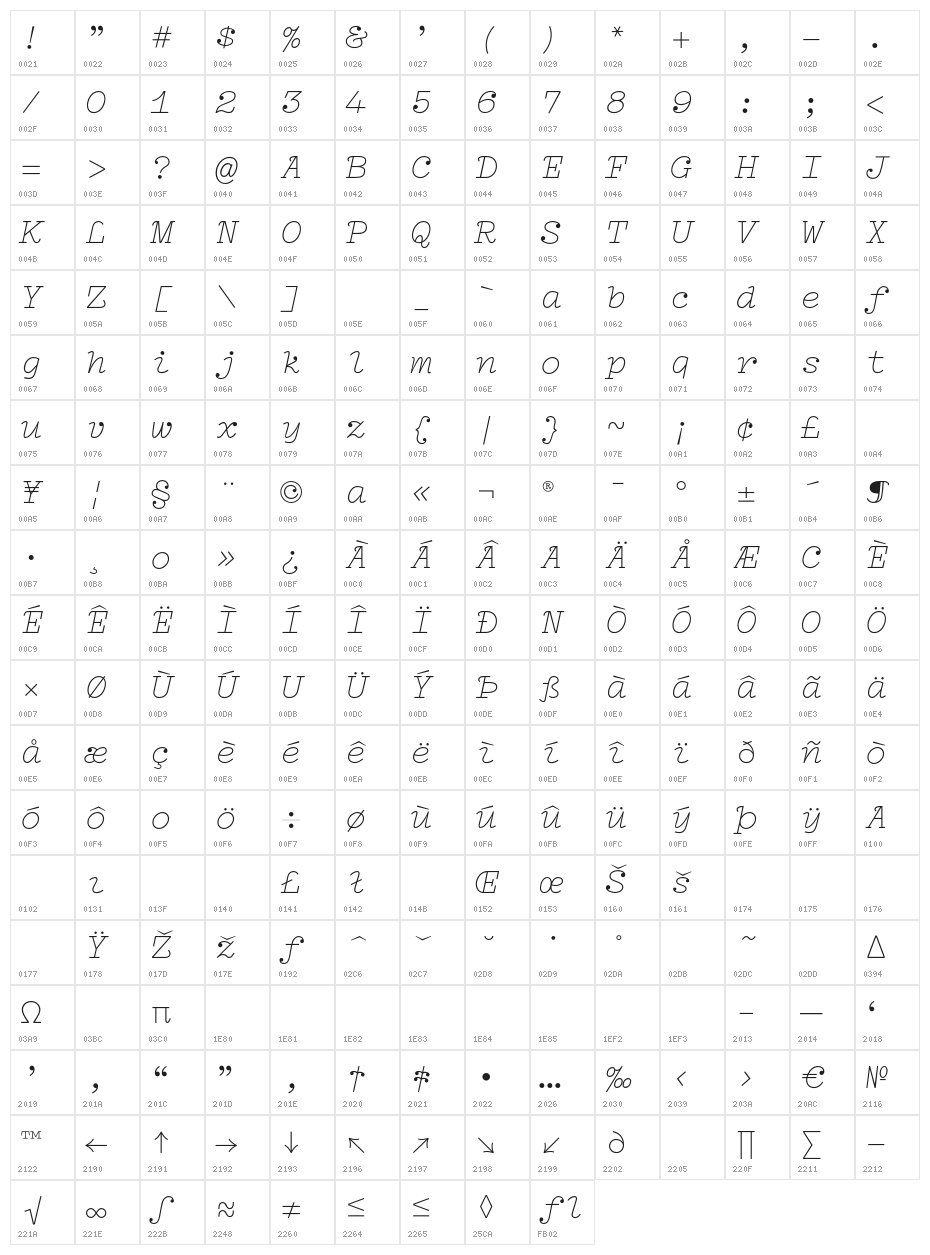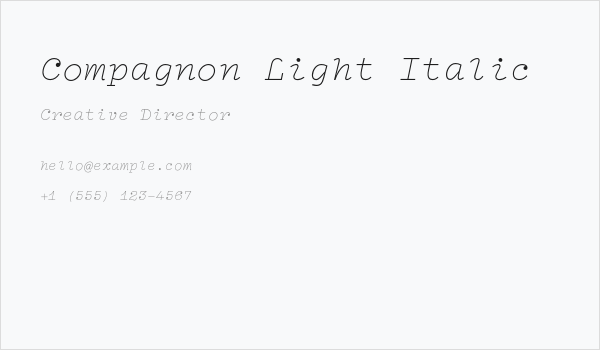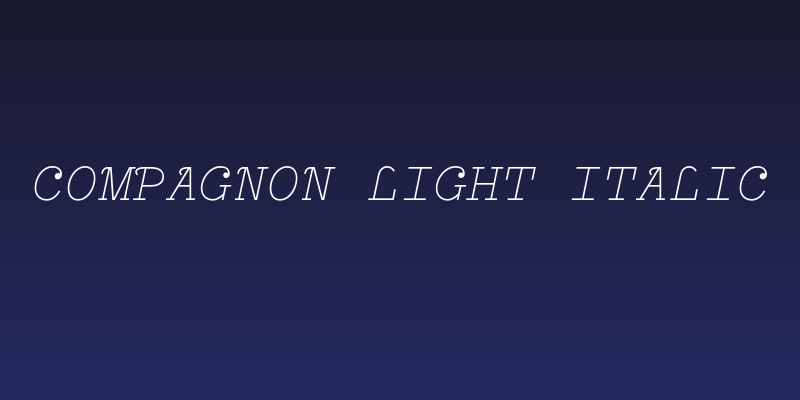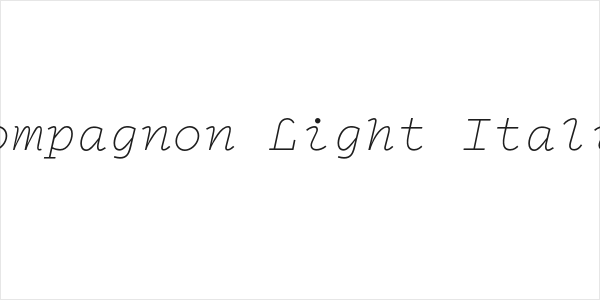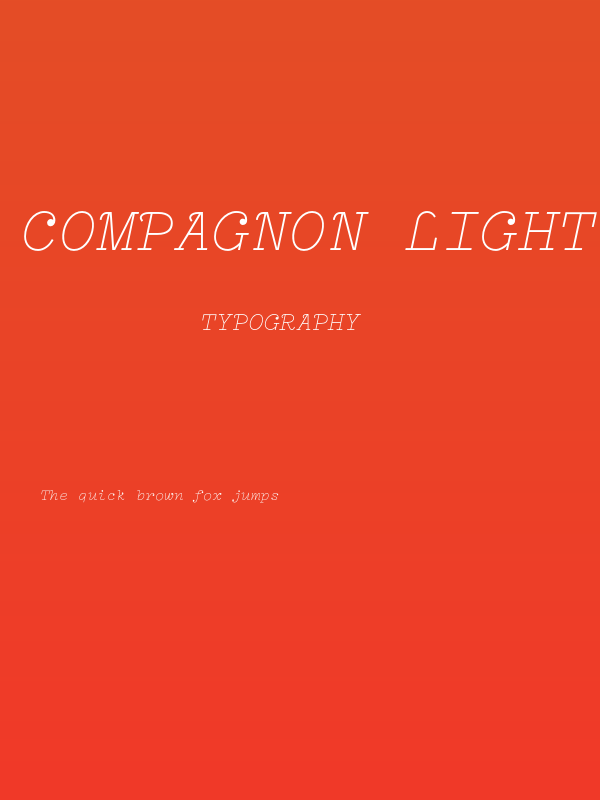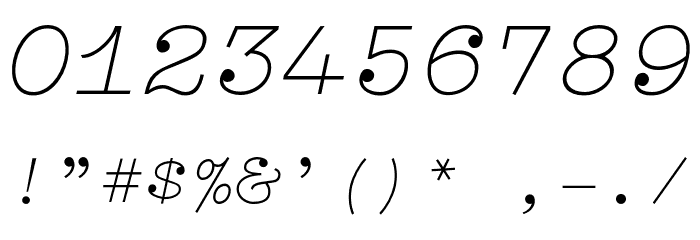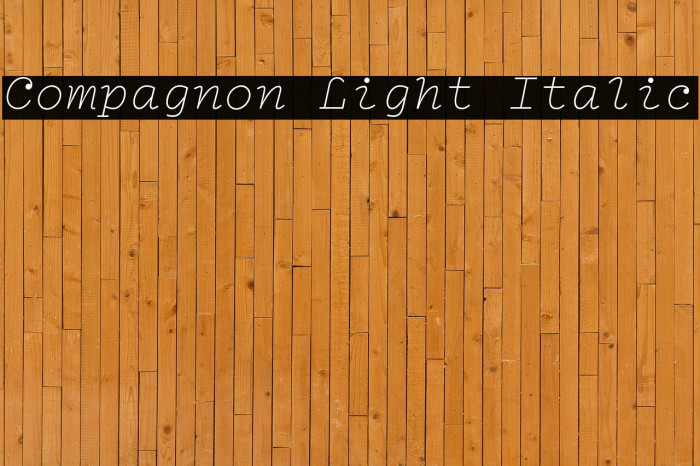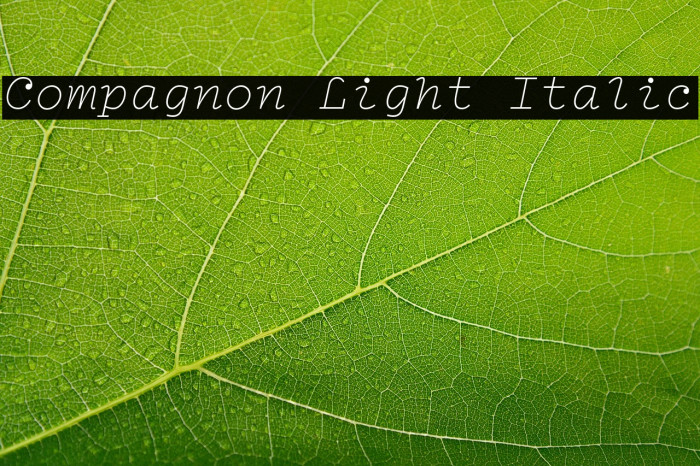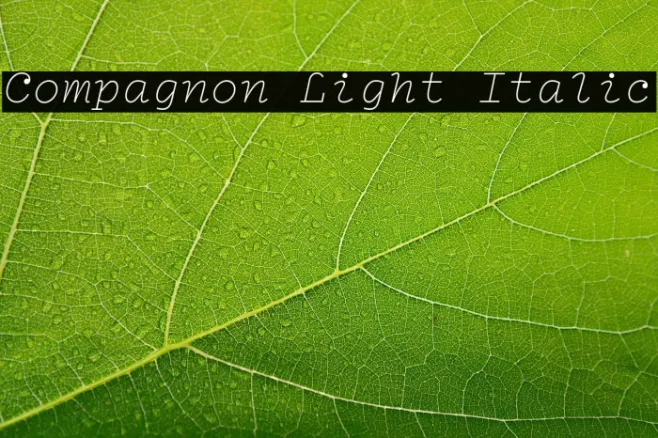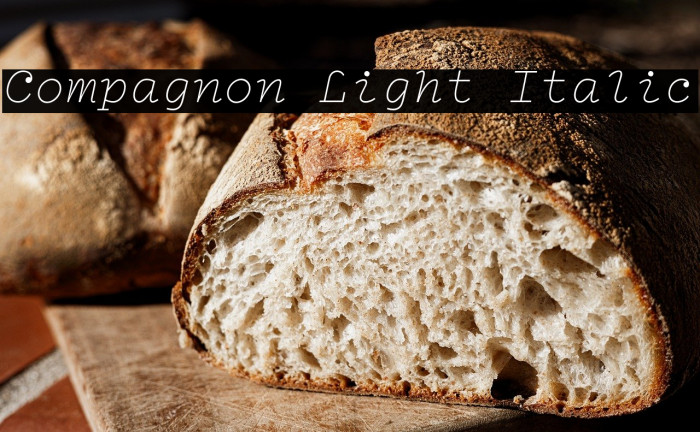
Compagnon Light Italic Font
Compagnon Light Italic Description
This font features a delicate and elegant design with a light and airy feel. The italic style adds a sense of motion and fluidity, making it ideal for conveying sophistication and grace. The characters are well-proportioned, with a slight slant that enhances readability while maintaining a stylish appearance. The strokes are thin, contributing to a light overall weight, and the spacing between characters is balanced, ensuring clarity and legibility. This font is versatile, suitable for both formal and creative applications, and its refined aesthetic makes it perfect for projects that require a touch of elegance.
| Proposed Projects | Ideal for wedding invitations, elegant branding, fashion magazines, and high-end product packaging. |